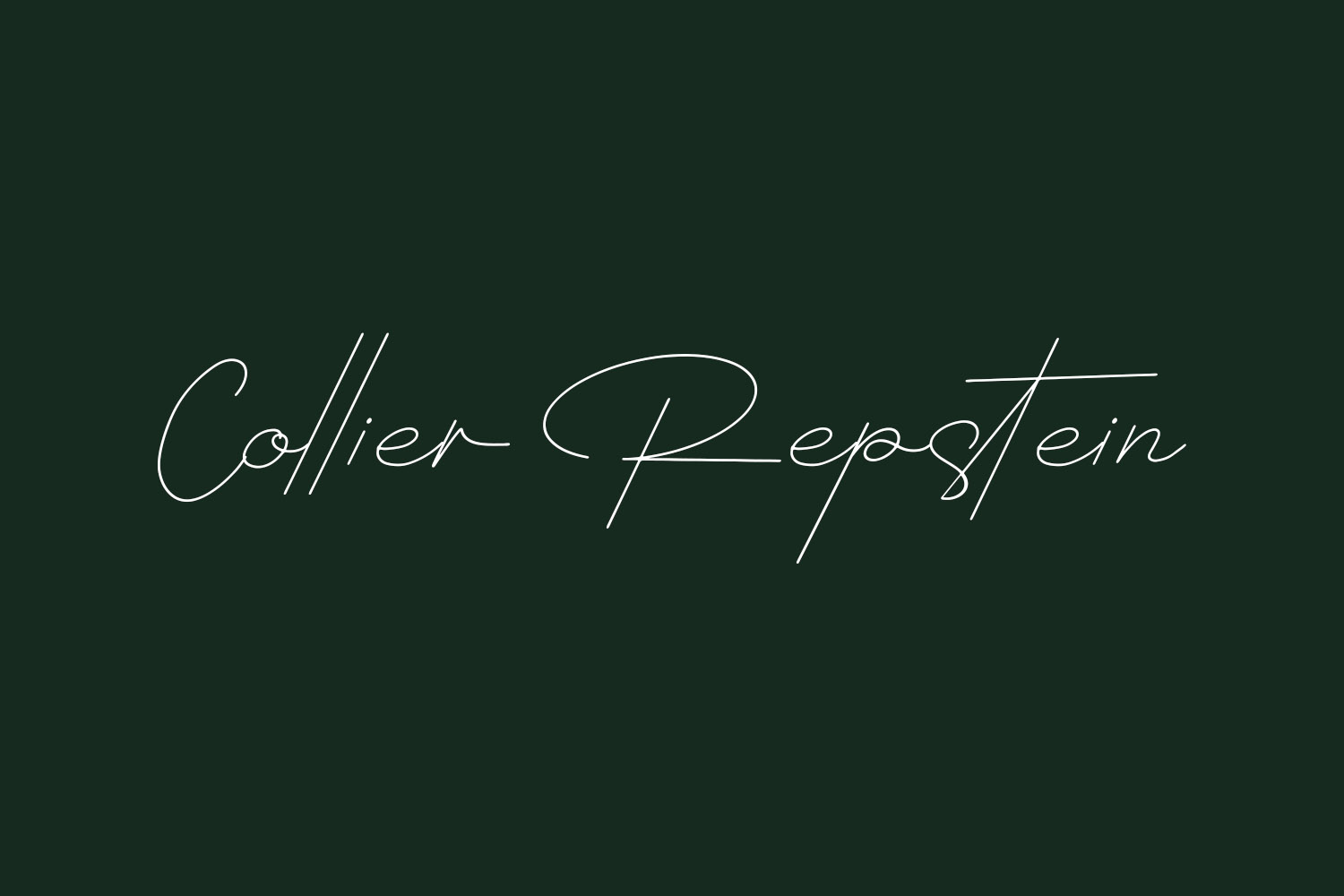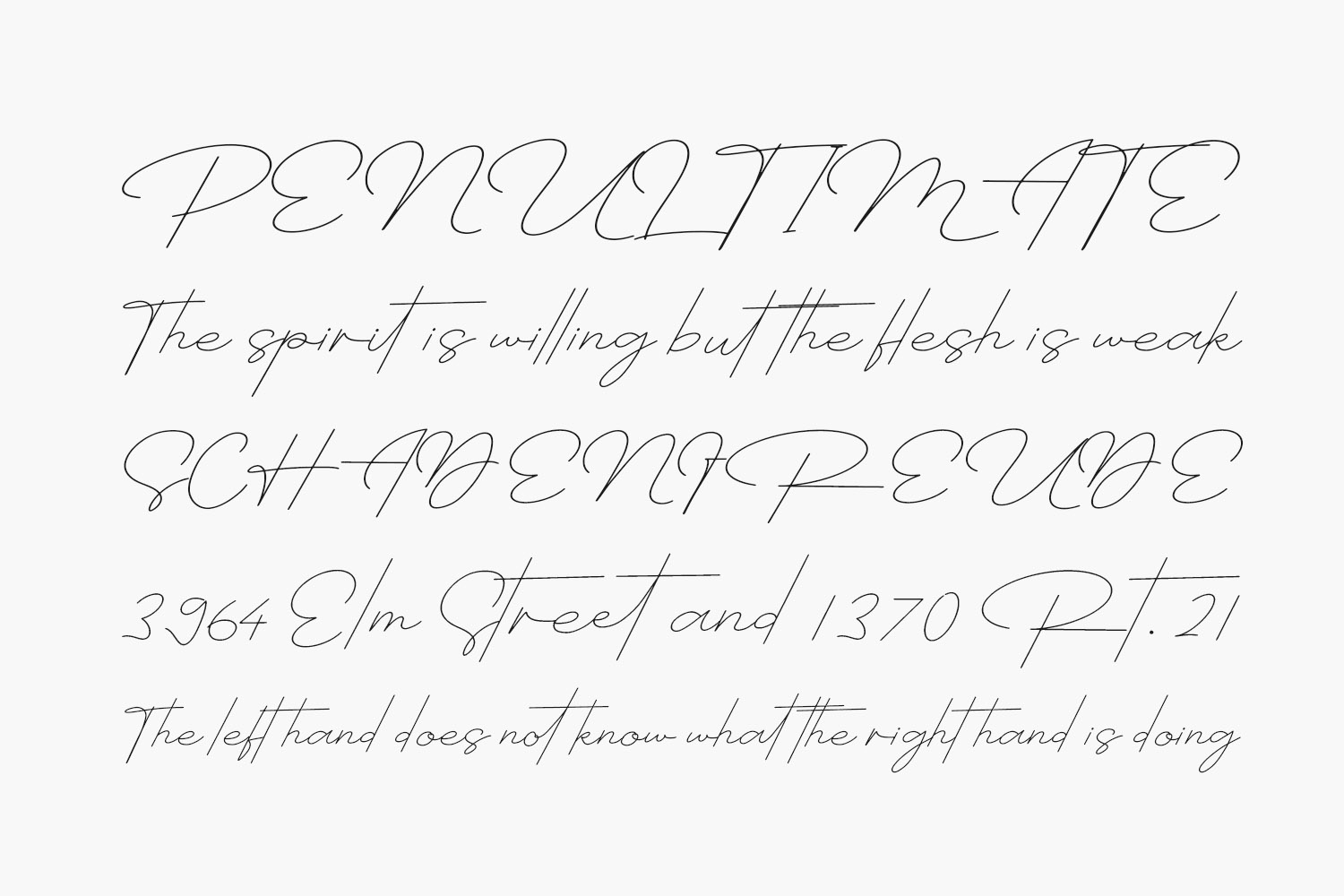
Collier Repstein Free Font is a lovely and thin lettered script font. It will elevate a wide range of crafting ideas, from cards to branding, labels and much more. Collier Repstein Free Font is free for personal use only. Please purchase the full version for commercial use.
Designed by Integritype Studio